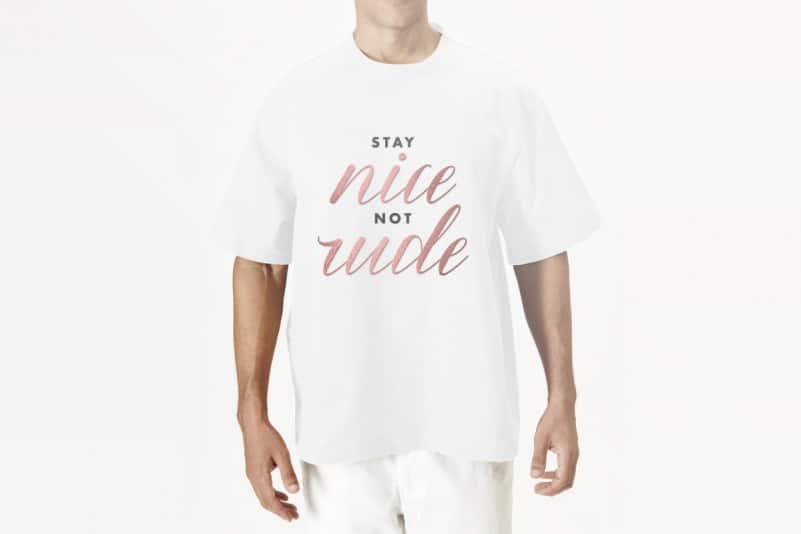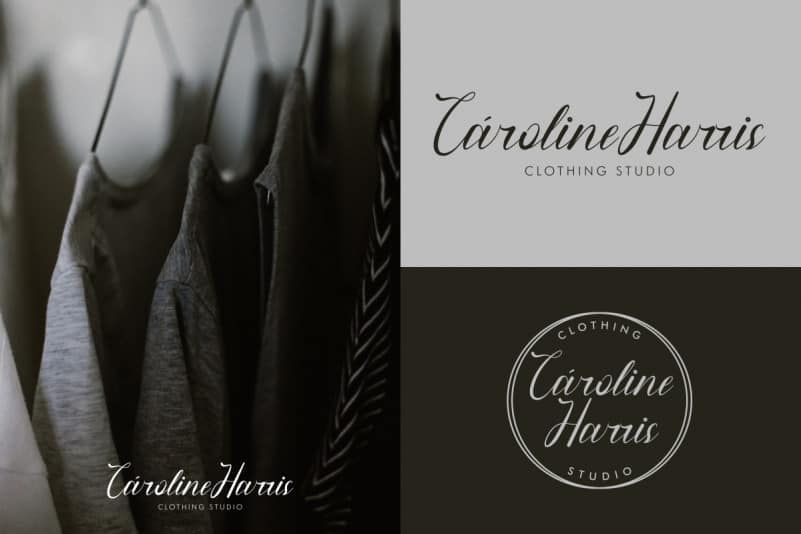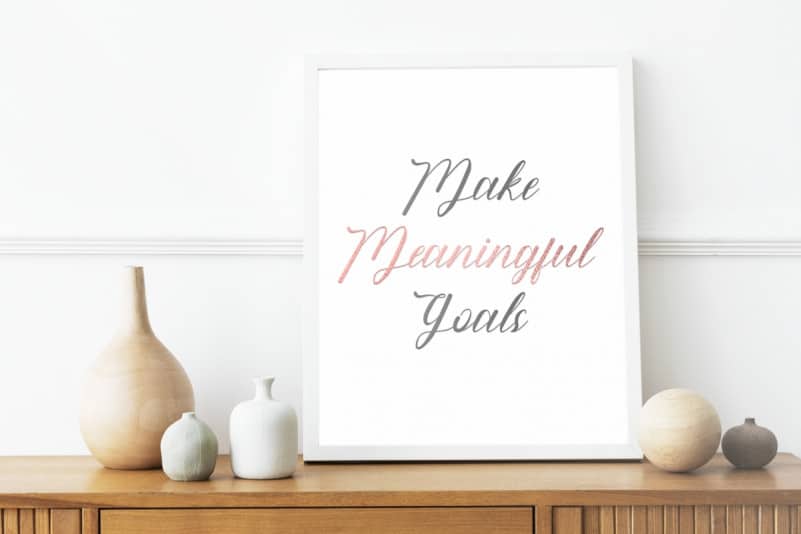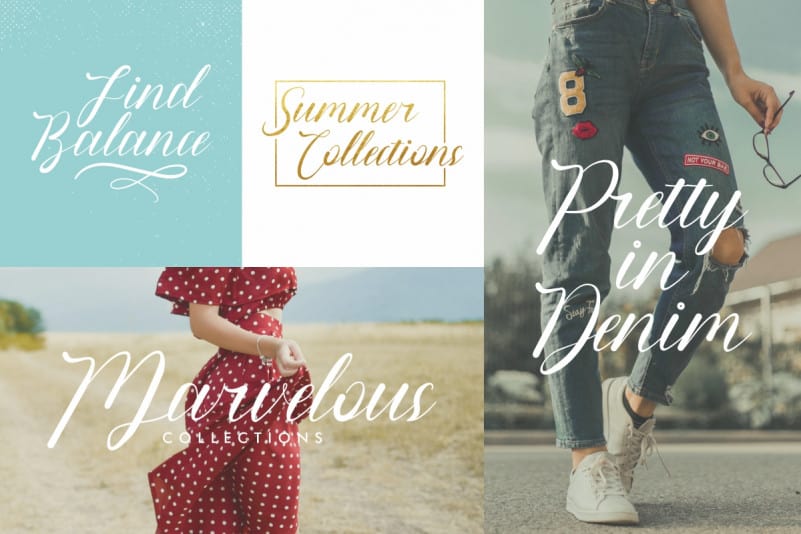
Quickstep Script Font
Quickstep Script Font is a luxurious calligraphy font which is combining modern and classic typography with elegant look. This font is crafted carefully in every its single letter so we can make sure it has great looking, inspired by the handwriting of Italian women and ancient manuscripts. Carefully designed to work together in harmony and This one should make your designs instantly professional and jaw-dropping!
Quickstep Script Font includes full set of Uppercase and Lowercase Basic Characters, Numerals and Punctuation. Also it contains ligatures to make it flowless characters to perfectly make awesome look that add more aesthetic fonts to perfect your extraordinary project.